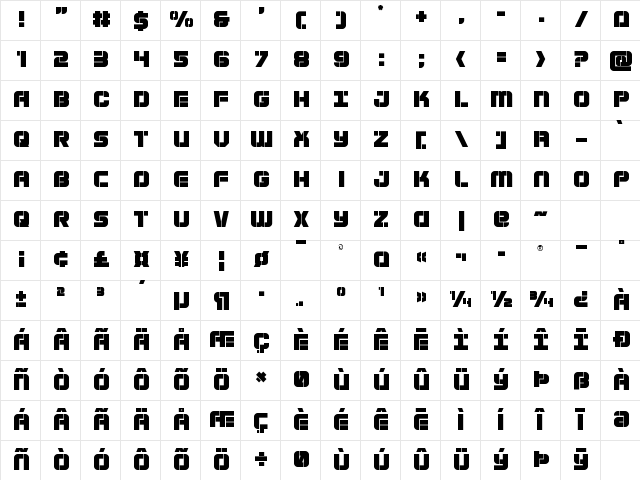
Complete Super Submarine Title Regular glyph index. Displaying only characters natively supported by Super Submarine Title Regular font.
Super Submarine Title is a composed and adaptable typeface that performs quietly and consistently across a wide range of design contexts.